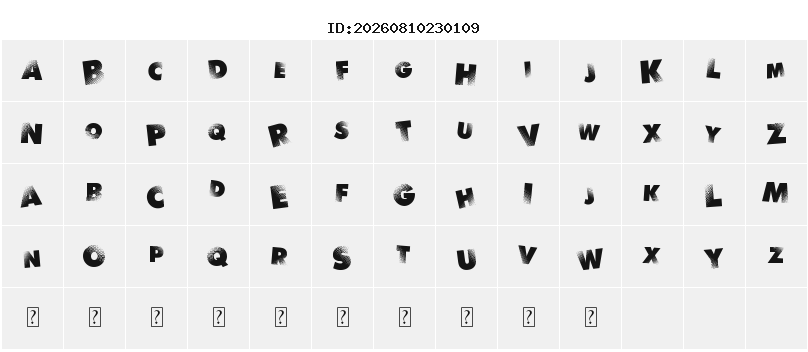
• Font Name: Rythm N Blacks
• Designer: Imagex
Rythm N Blacks.ttf is a modern, elegant sans-serif font designed for ultimate readability and visual harmony. Perfect for branding, headlines, web design, and print materials.